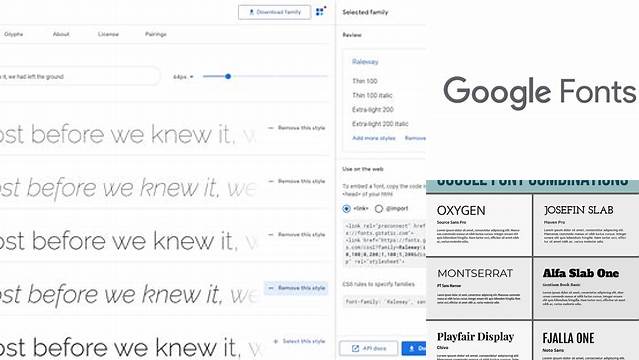
Google Fonts: A Guide To Beautiful Web Typography
Google Fonts is a game-changer for web designers and developers. It offers a vast library of free, open-source fonts that can be seamlessly integrated into any website. This comprehensive guide dives deep into the world of Google Fonts, exploring its benefits, how to use it effectively, and best practices for choosing the right fonts for your projects. So, if you're looking to elevate your website's typography and create a visually stunning online presence, you've come to the right place! Let's get started, guys!
What are Google Fonts and Why Use Them?
At its core, Google Fonts is a free service that provides a massive collection of high-quality fonts for use on the web. Think of it as a giant digital typography playground, filled with a diverse range of typefaces to suit any design aesthetic. But why should you even bother with Google Fonts? Well, there are several compelling reasons:
- Huge Variety: The Google Fonts library boasts hundreds of fonts, ranging from classic serif and sans-serif styles to modern display fonts and everything in between. You're practically guaranteed to find fonts that match your brand's personality and the overall tone of your website. Whether you're going for a clean, minimalist look or a bold, expressive feel, Google Fonts has you covered.
- Performance Optimization: Google Fonts are served from Google's global network of servers, ensuring fast loading times for your website. This is crucial for user experience, as slow-loading fonts can negatively impact your site's performance and potentially drive visitors away. Google also optimizes font files for web use, reducing their size and further improving loading speeds. This is seriously important for website performance!
- Cross-Browser Compatibility: Google Fonts are designed to work seamlessly across all major web browsers, ensuring a consistent visual experience for all your visitors. You don't have to worry about fonts rendering differently or failing to load on certain browsers, which can be a major headache when dealing with self-hosted fonts.
- Constantly Evolving: The Google Fonts library is constantly being updated with new fonts and improvements to existing ones. This means you'll always have access to the latest typographic trends and innovations, keeping your website looking fresh and modern.
- Accessibility: Many Google Fonts are designed with accessibility in mind, offering features like proper character spacing and clear letterforms that make them easier to read for users with visual impairments. Choosing accessible fonts is crucial for creating an inclusive website that caters to all your visitors.
In essence, Google Fonts democratizes web typography, making it easier than ever to create beautiful and functional websites with professional-grade fonts. It's a powerful tool in any web designer's arsenal, and it's something you should definitely be taking advantage of.
How to Use Google Fonts: A Step-by-Step Guide
Okay, so you're convinced that Google Fonts are awesome. Now, let's dive into the nitty-gritty of how to actually use them on your website. Don't worry, it's a straightforward process, even if you're not a coding whiz. Here's a step-by-step guide:
Browse the Google Fonts Library: Head over to the Google Fonts website (https://fonts.google.com/). This is where the magic happens! You'll be greeted with a vast array of fonts, each with its own unique style and character. Take your time to explore the library and get a feel for the different options available. You can use the filters on the left-hand side to narrow down your search based on categories like serif, sans-serif, handwriting, and more. You can also filter by font properties like thickness, slant, and width.
Select Your Fonts: Once you've found a font (or fonts) that you like, click on it to view its details page. Here, you'll see a preview of the font in various sizes and styles, along with information about the font's designer and license. To add the font to your collection, click the "Select this style" button next to the styles you want to use (e.g., Regular, Bold, Italic). A sidebar will appear at the right-hand side of the screen, displaying your selected fonts.
Choose Your Embedding Method: In the sidebar, you'll see two options for embedding the fonts into your website:
Google Fonts is a fantastic resource for web designers and developers. It provides a vast library of free, high-quality fonts that can be easily integrated into any website. By understanding how to use Google Fonts effectively and following best practices for font selection and optimization, you can create websites that are not only visually appealing but also perform well. So go forth and experiment with different fonts, guys! Unleash your inner typographer and create websites that are truly unique and engaging. Happy font-ing!